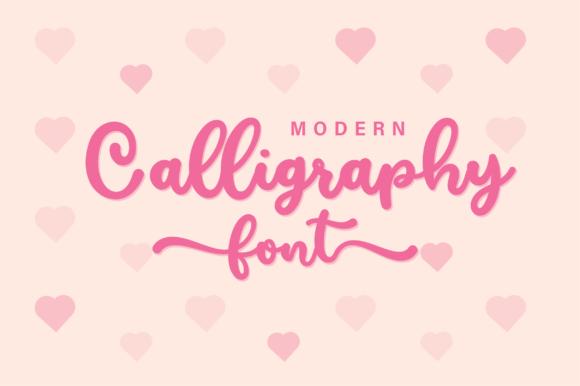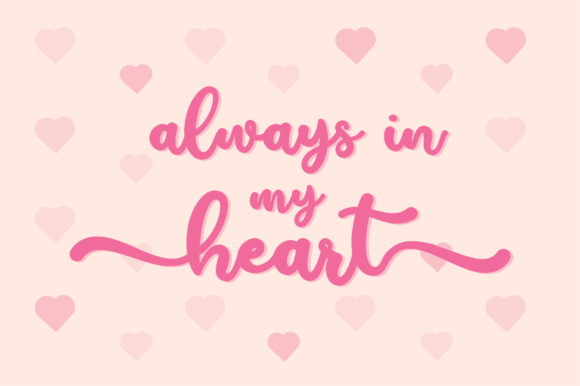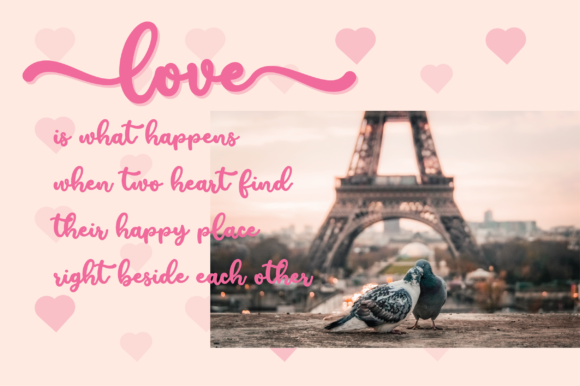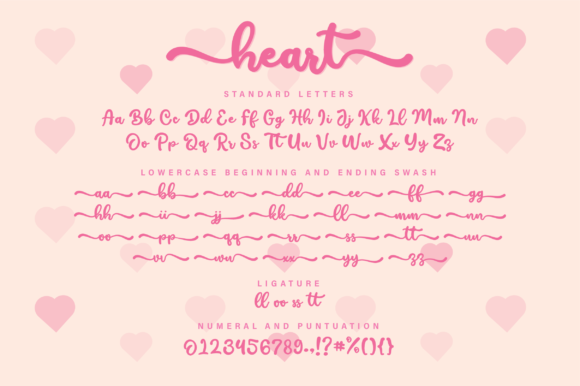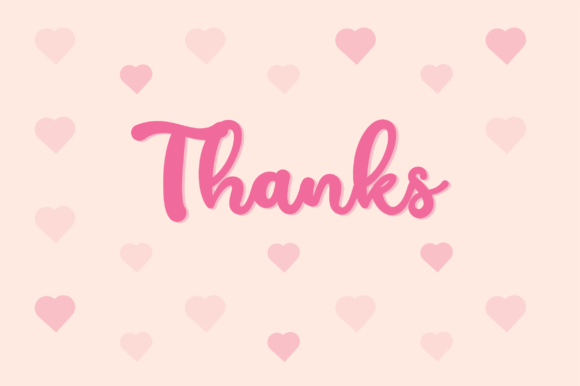
Introducing Heart Font: The Perfect Script for Love-Themed Projects
Are you looking for a font that exudes love, care, and affection? Look no further than Heart Font, a beautiful and charming script that’s perfect for any love-themed project. Whether you’re working on a Valentine’s Day craft, a wedding invitation, or a romantic gift, Heart Font is the ideal choice to convey your emotions.
A Cute and Lovely Font Full of Love
Heart Font is a stunning script that’s designed to capture the essence of love and romance. Its delicate and whimsical design makes it perfect for a variety of projects, from DIY crafts to professional designs. The font’s intricate details and flowing curves will add a touch of elegance and sophistication to any project.
Ideal for Valentine’s Day Crafts and Love-Themed Projects
Valentine’s Day is just around the corner, and Heart Font is the perfect script to make your projects stand out. Whether you’re creating handmade cards, gift tags, or decorations, this font will add a romantic touch that’s sure to impress. Its versatility also makes it suitable for other love-themed projects, such as wedding invitations, baby announcements, and more.
PUA Encoded for Easy Access to Magical Glyphs and Swashes
Heart Font is PUA (Private Use Area) encoded, which means you can access a wide range of magical glyphs and swashes with ease. This feature allows you to add an extra layer of creativity to your projects, making them truly unique and special. With Heart Font, you can create stunning designs that will leave a lasting impression.
Special Features: Alternate Glyphs and Ligatures
Heart Font comes with a wealth of special features that will take your designs to the next level. The font includes alternate glyphs and ligatures, which allow you to add more variety and interest to your text. These features make it easy to create beautiful and intricate designs that will set your projects apart.
Heart Font is a versatile script that’s perfect for both designers and crafters. Whether you’re working on a professional design project or a DIY craft, this font is easy to use and will produce stunning results. Its compatibility with various design software makes it a great addition to any design library.
Tips for Using Heart Font in Your Projects
Here are some tips for using Heart Font in your projects:
- Pair Heart Font with a simple background to make your text stand out.
- Use the font’s magical glyphs and swashes to add a touch of whimsy to your designs.
- Experiment with different colors and textures to add depth and interest to your projects.
- Don’t be afraid to mix and match Heart Font with other fonts to create a unique look.
Heart Font is a beautiful and charming script that’s perfect for any love-themed project. Its delicate design, magical glyphs, and special features make it a versatile font that’s suitable for designers and crafters alike. Whether you’re working on a Valentine’s Day craft or a professional design project, Heart Font is sure to add a touch of love and romance to your creations.